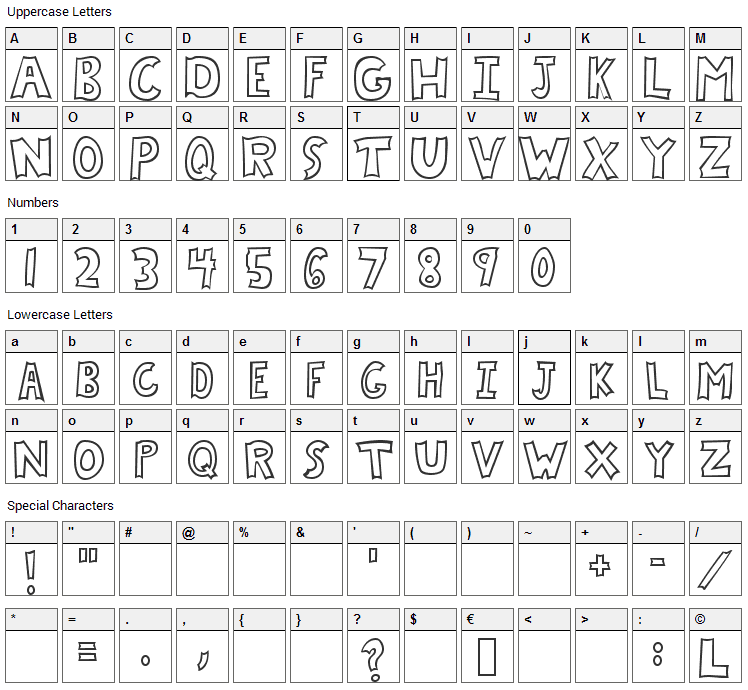
Chrysalis Font
Category:Fancy > Cartoon
I originally sketched this font in class as an idea for a T-Shirt for the North LA Young Adult Chrysalis. I was trying to approximate the Haulnhouse font from House Industries. I realized that it looked nothing like it one I compared them. But since it looked interesting to me, I finished the font a year later and finally got around to digitizing it. This version includes upper and lowercase letters, some punctuation, and some international characters. I also created the Filled version, which you download from my site. You use this font in any way that you see fit.